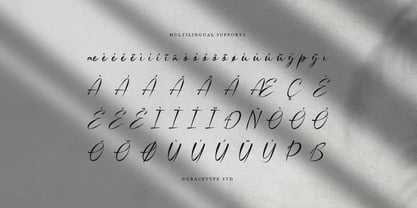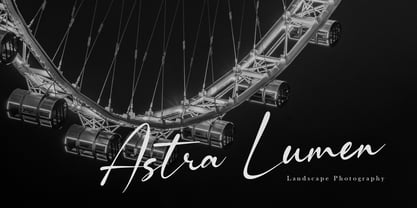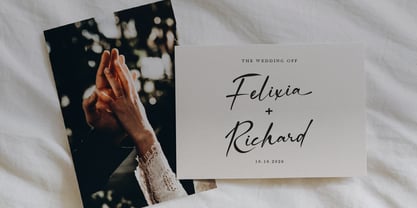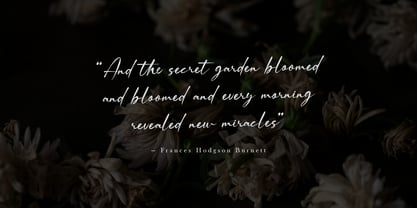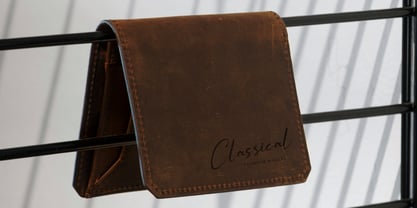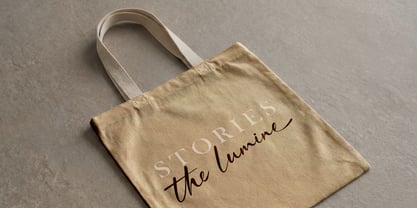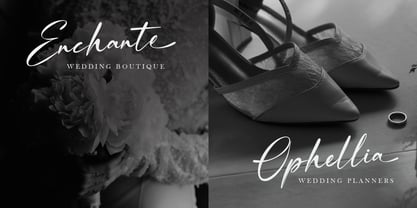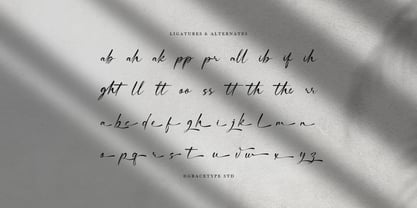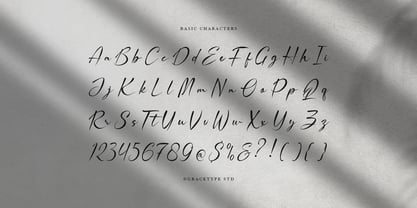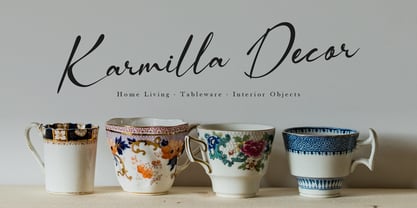
Rentosah
by Tini Fitriani
The Rentosah Font Family and published by Tini Fitriani. Rentosah contains 2 styles and family package options. More about this family
Rentosah | Elegant Signature Script, from Gracetypestudio, suitable for any projects such as: logos, branding projects, homeware designs, product packaging, mugs, quotes, posters, shopping bags, t-shirts, book covers, name card, invitation cards, greeting cards, label, photography, watermark, special events, and all your other lovely projects that need a Script taste.